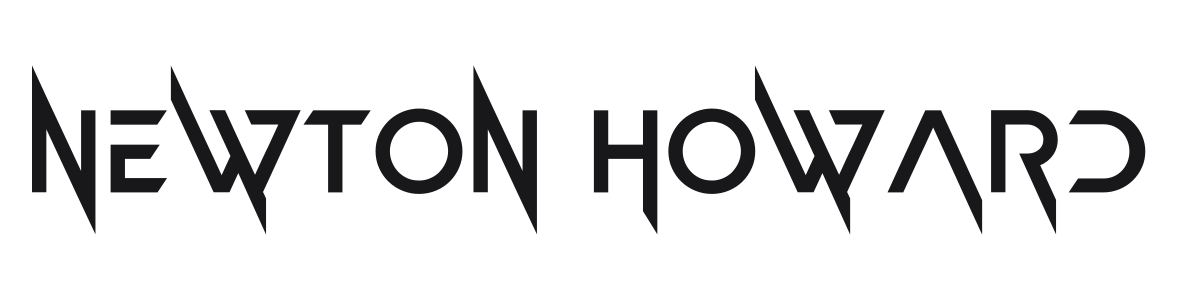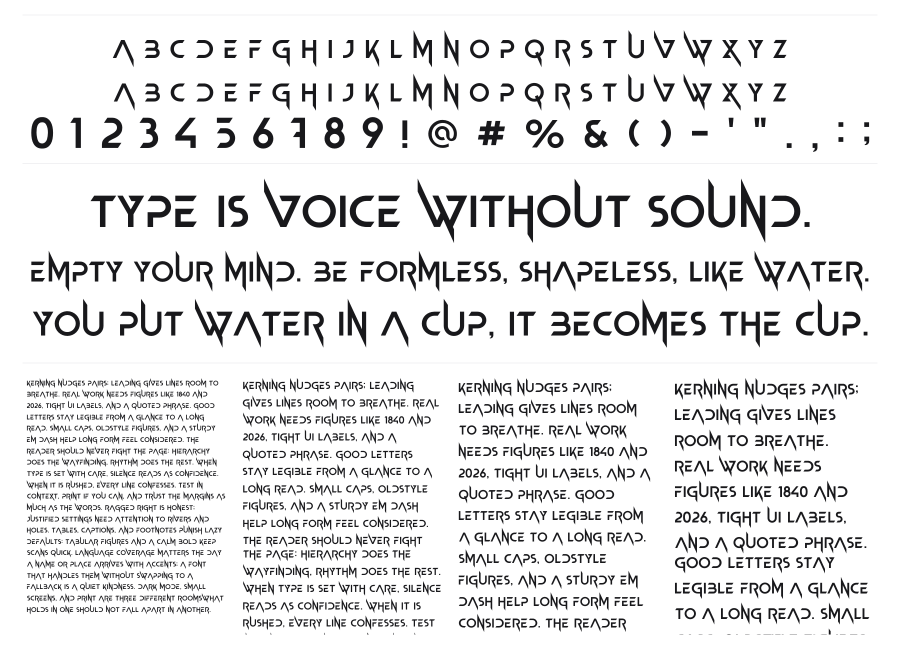
Newton Howard
Newton Howard is a bold geometric sans with sharp spiked cuts and angular distortions that give each character a fractured, aggressive edge. The design sits somewhere between military stencil and sci-fi lettering, with pointed terminals that puncture the baseline and cap height. It commands attention at large sizes and suits high-impact title work.